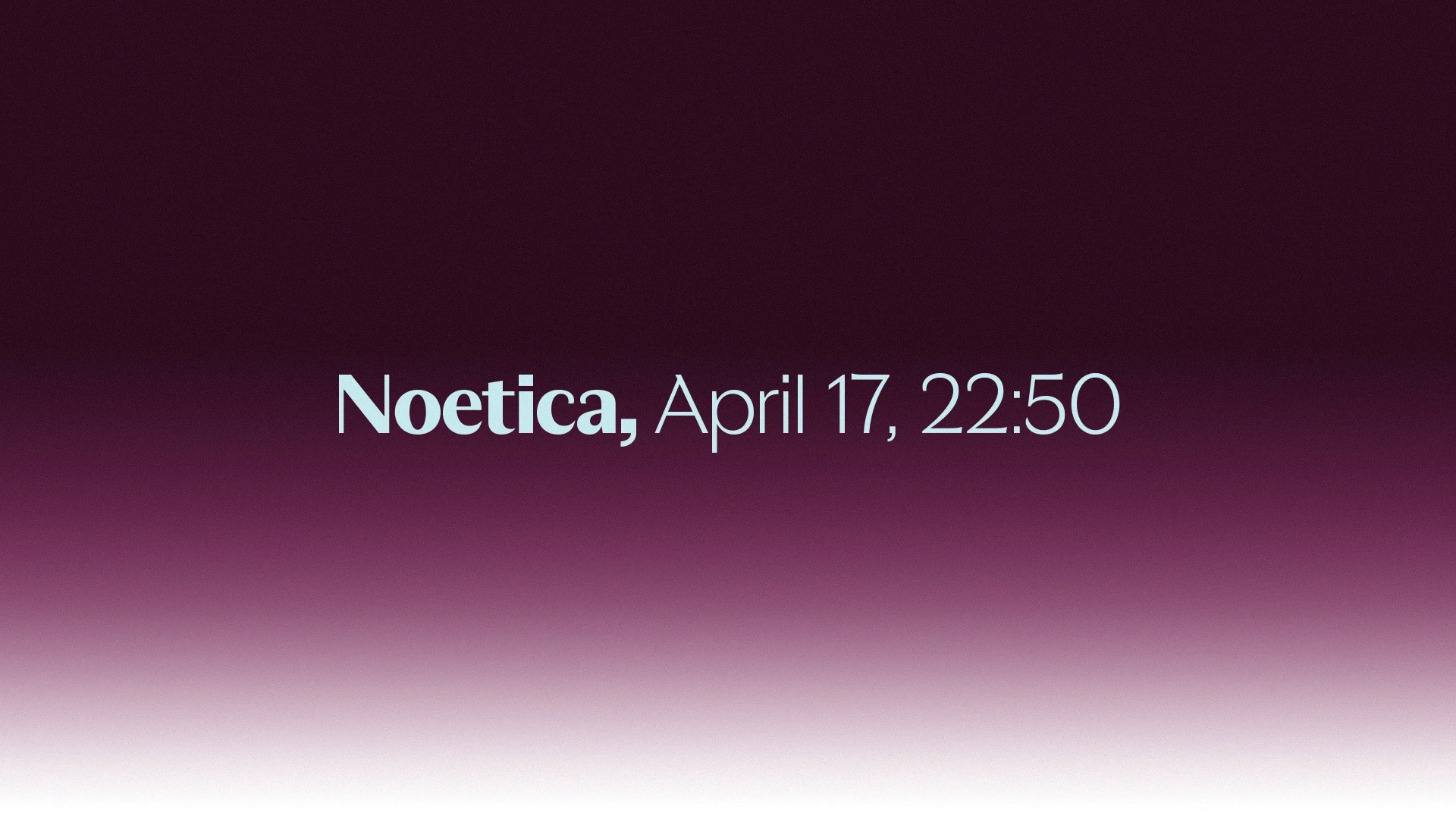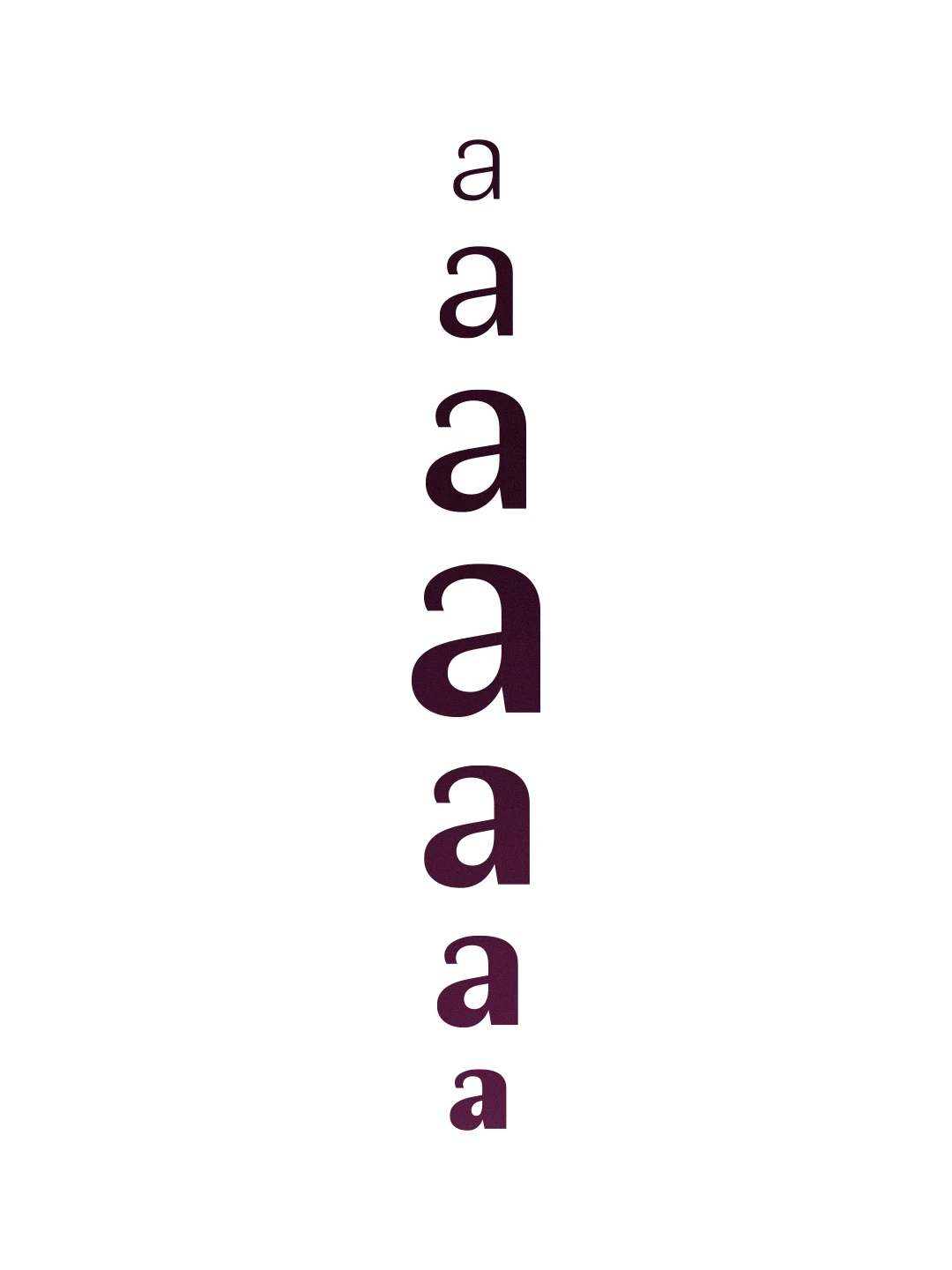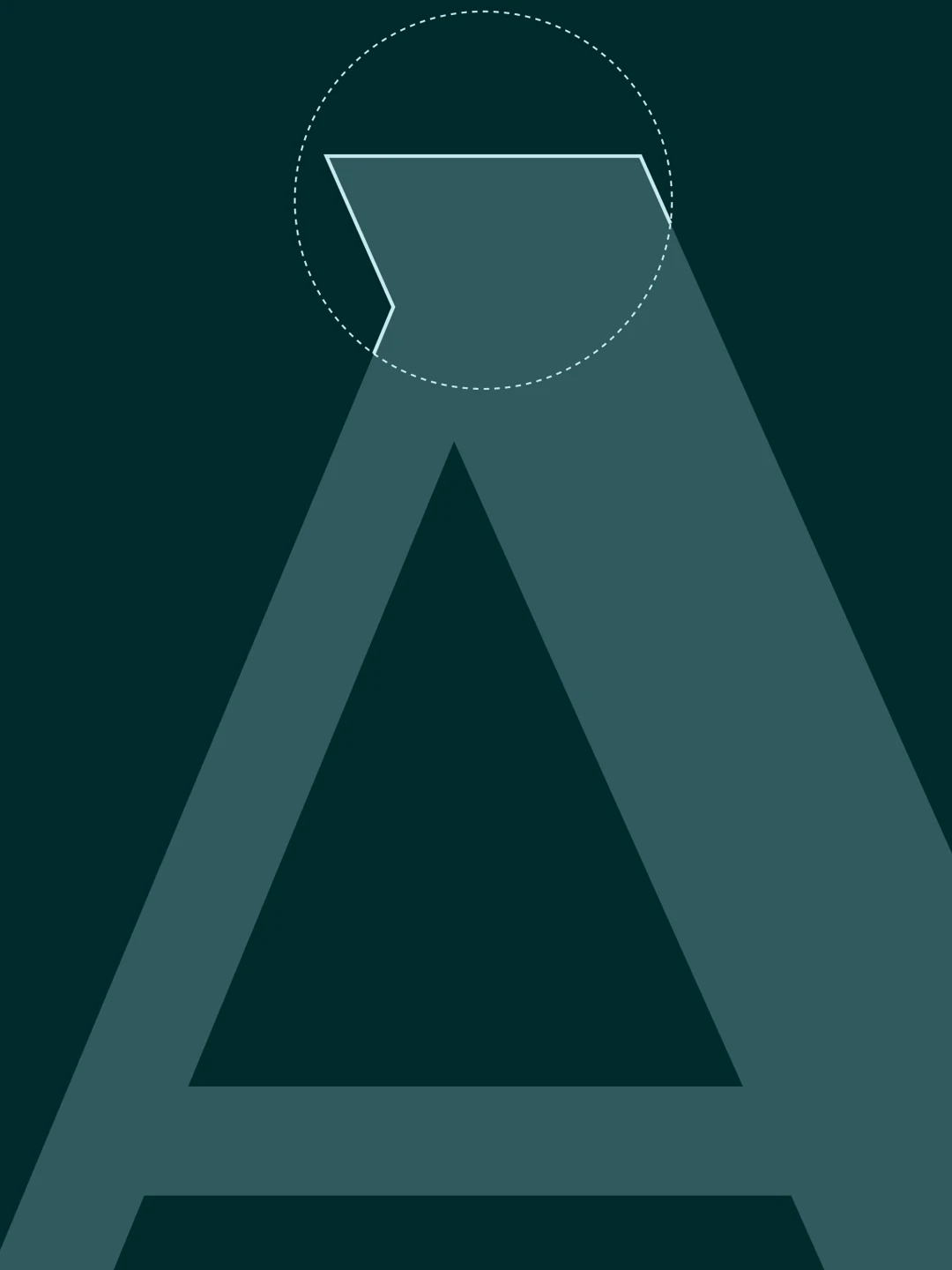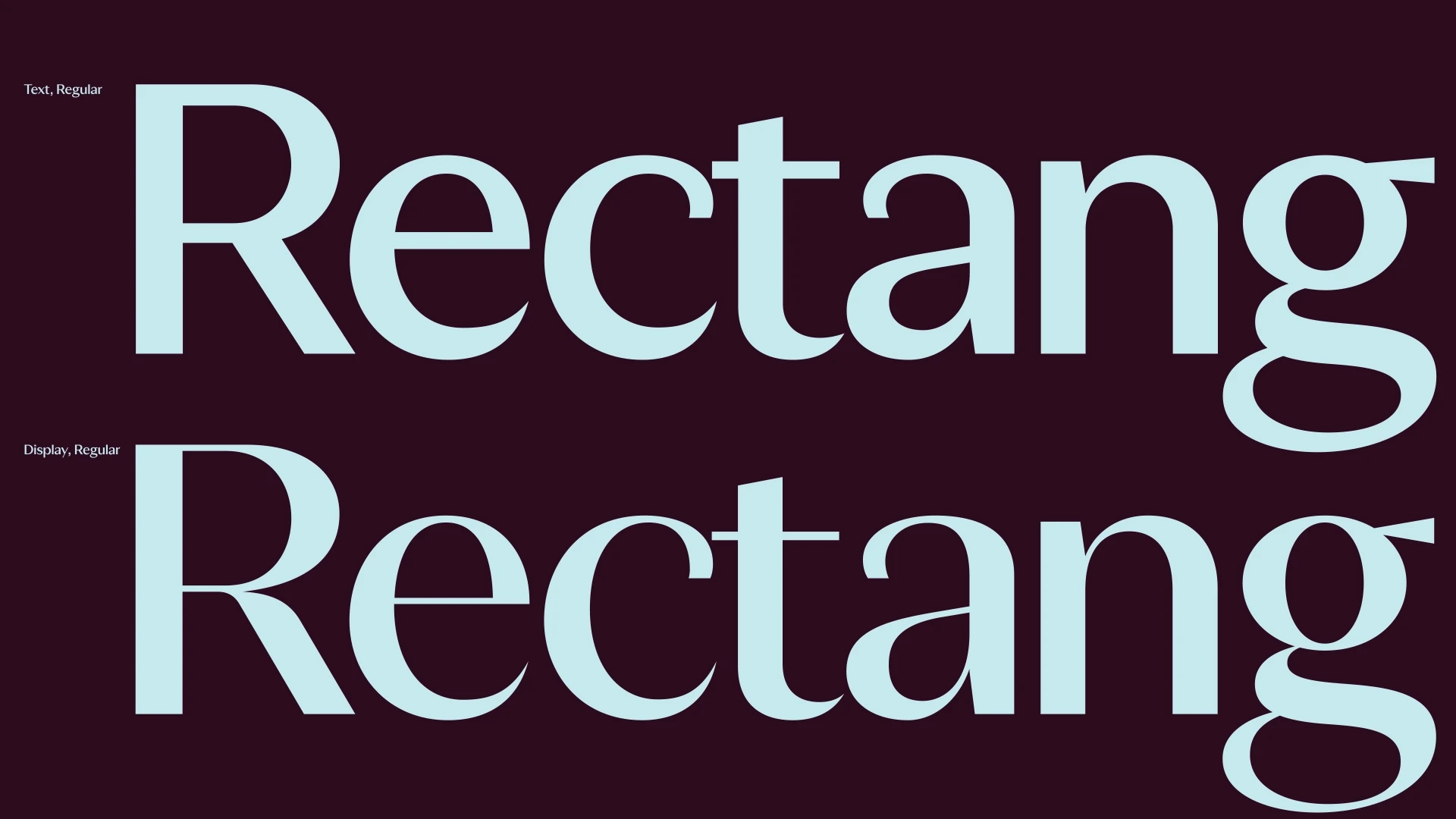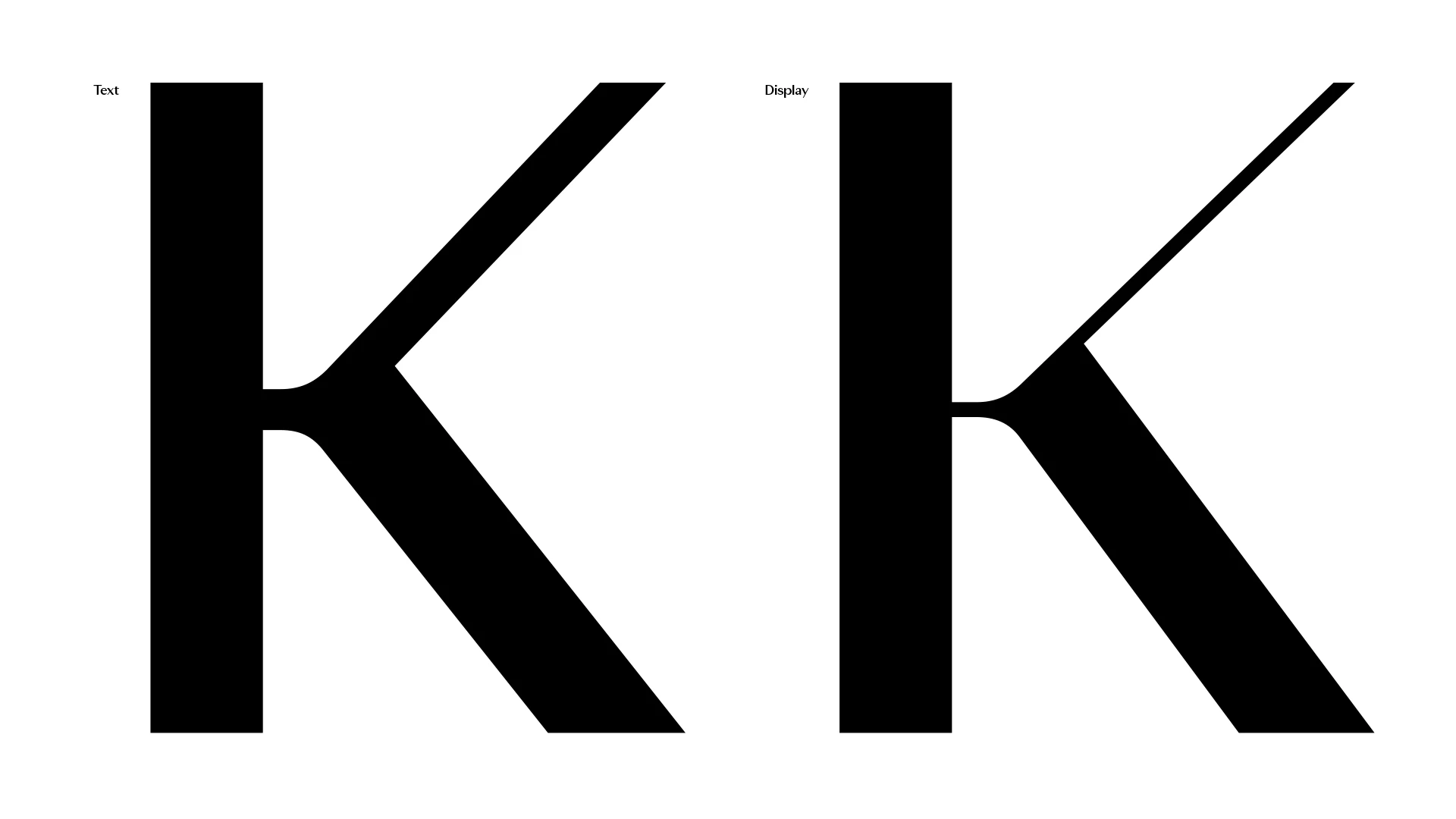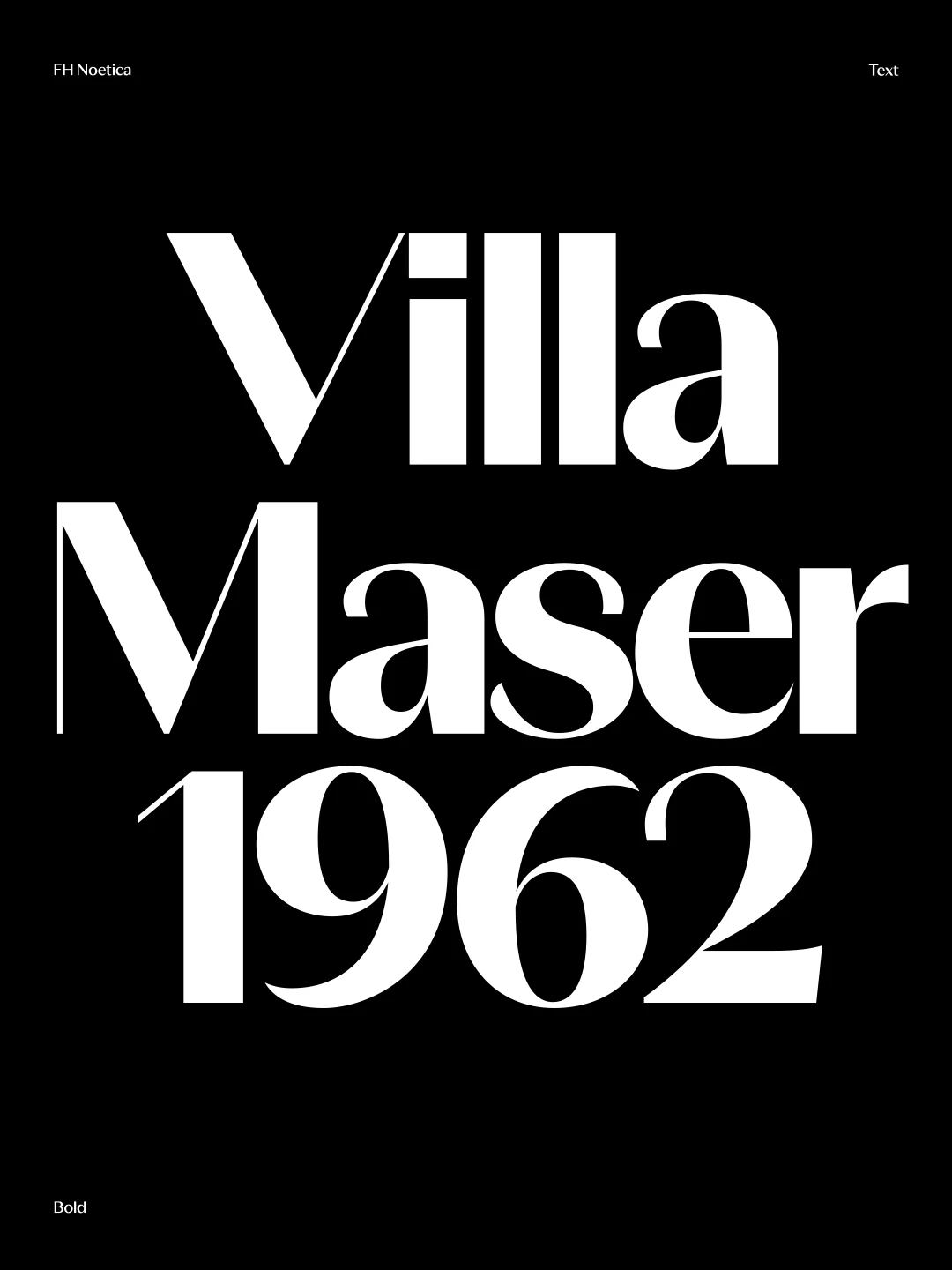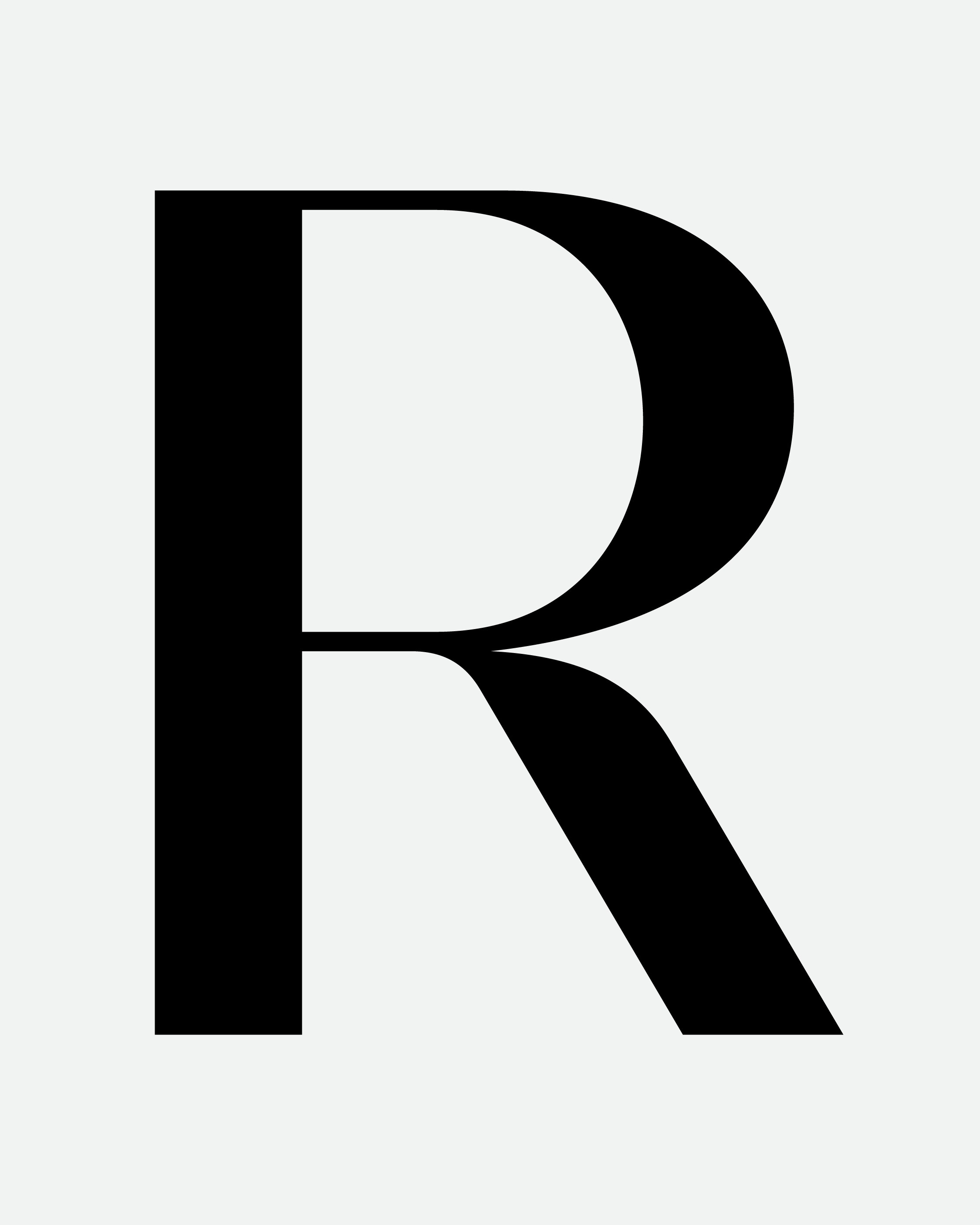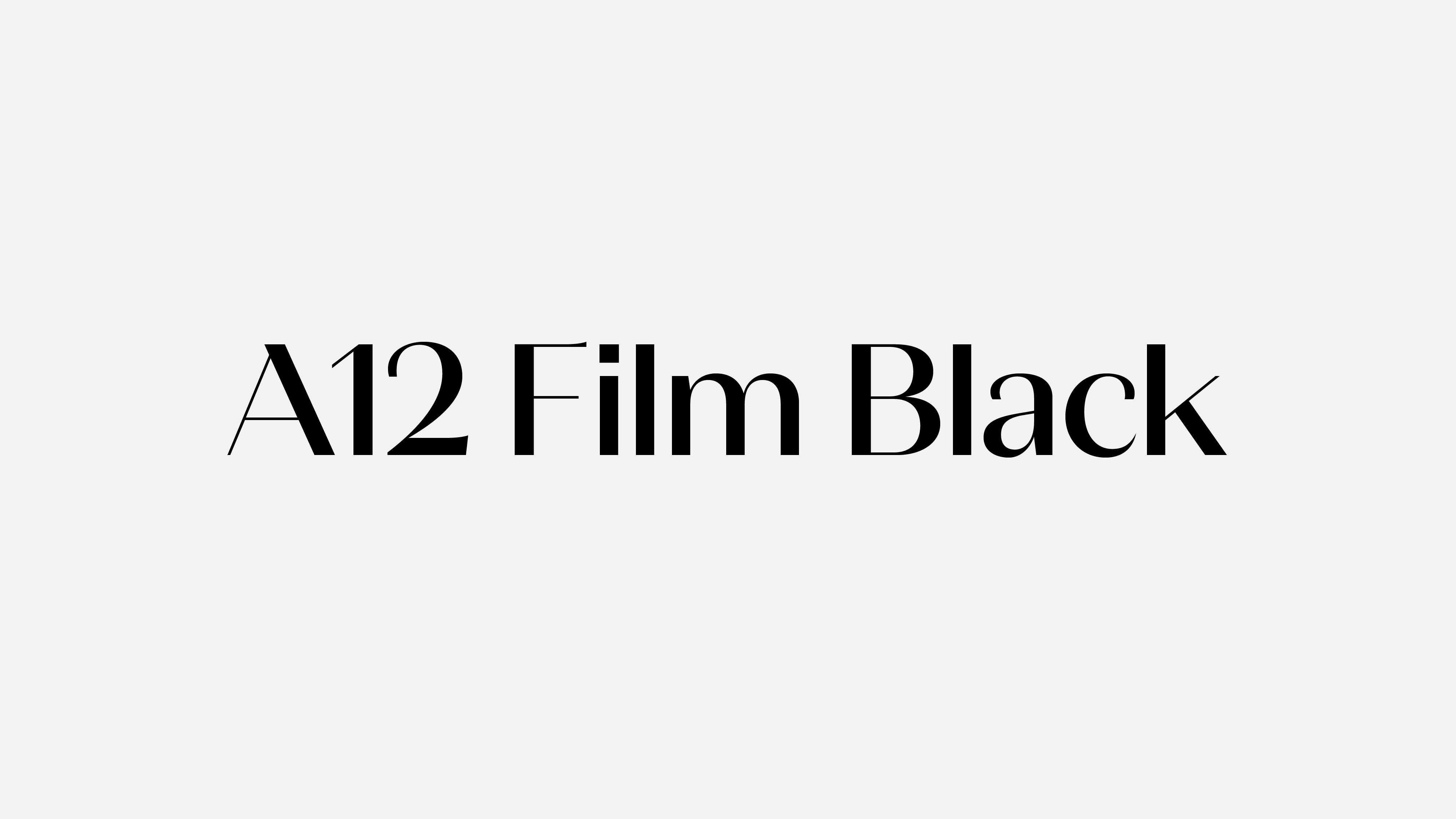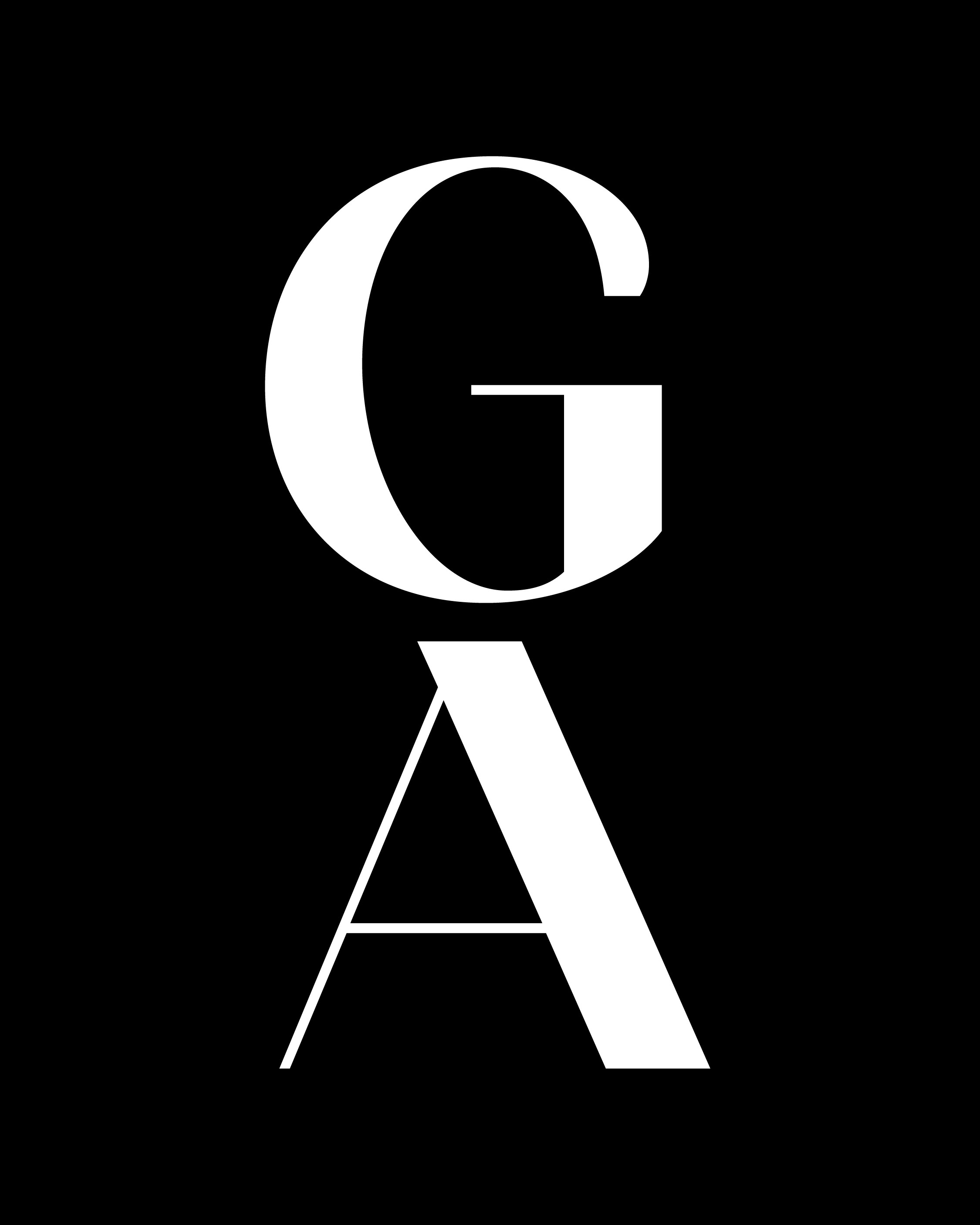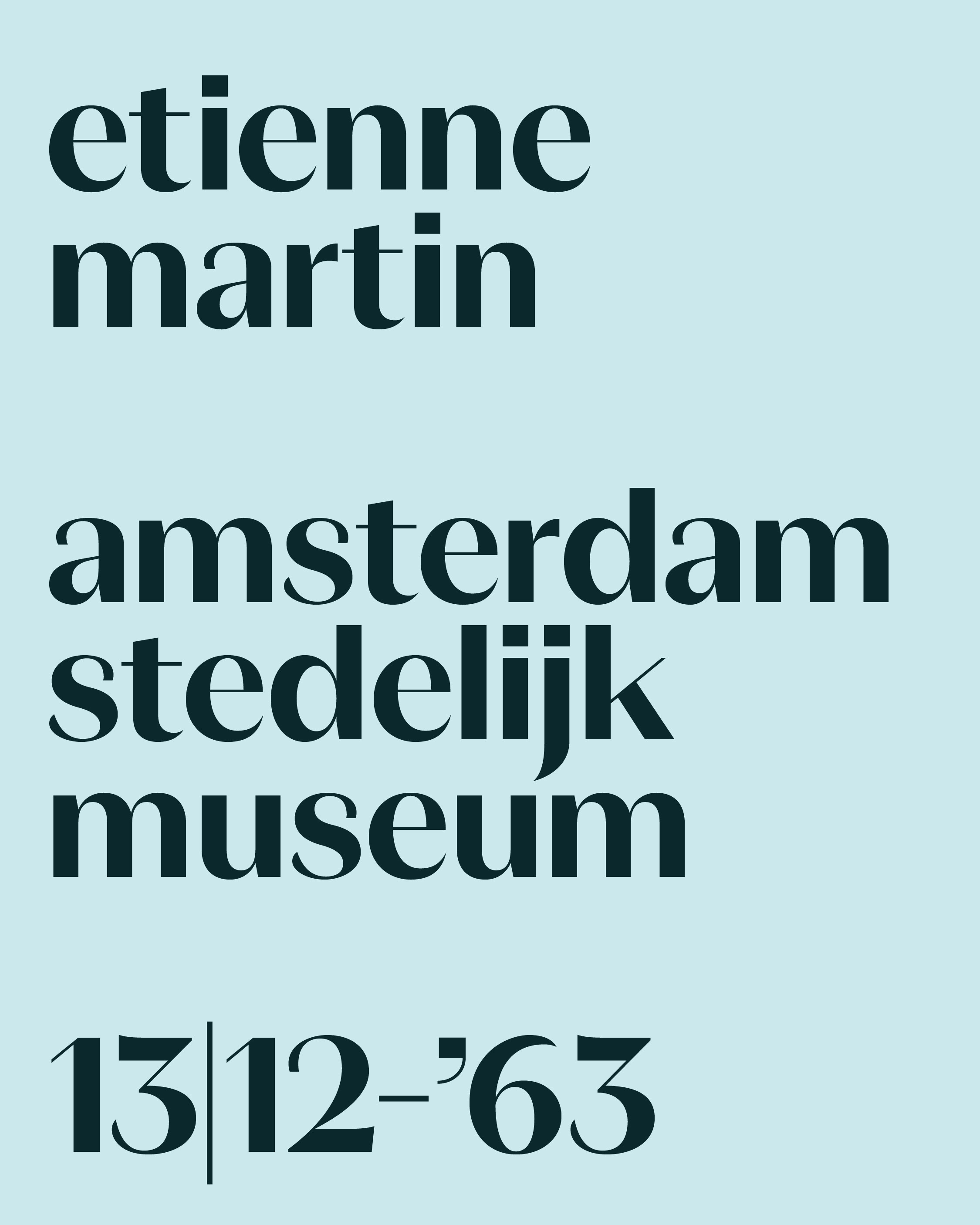
FH Noetica is a geometric sans-serif typeface shaped by optical sensitivity and modernist reasoning. Its design finds early resonance in A.M. Cassandre’s Peignot and Hermann Zapf’s Optima, both known for rejecting strict genre boundaries in favor of expressive structure. Rather than following conventional classifications, FH Noetica focuses on spatial clarity, tonal contrast, and architectural rhythm. The letterforms blend subtle modulation with geometric restraint, producing a tone that is neutral yet intentional. Designed with both text and display settings in mind, the typeface is especially suited to systems that require clarity without rigidity. Interfaces, editorial layouts, and photographic labeling among them. FH Noetica is not just built to be read, but to be seen with precision.